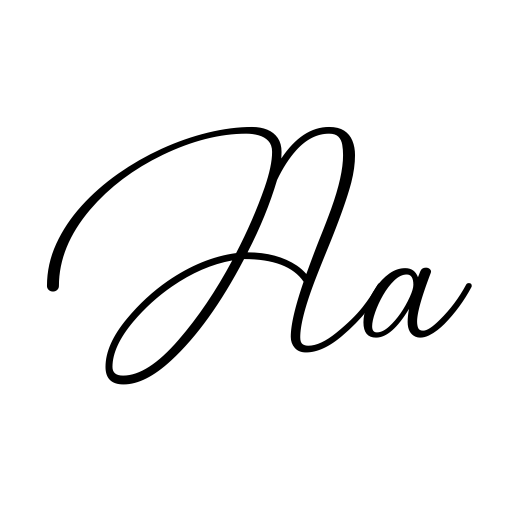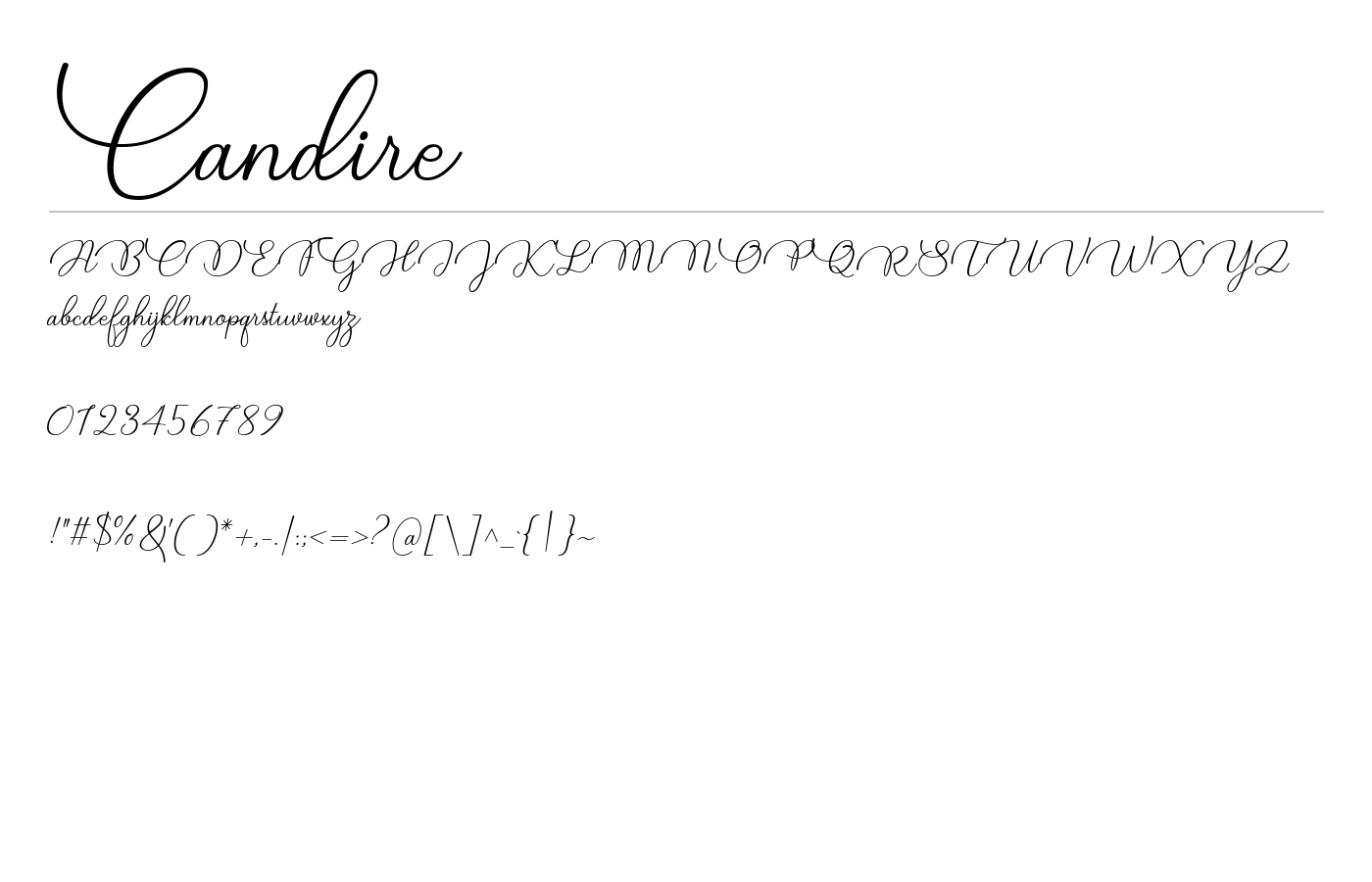
Candire is an elegant, delicate script font characterized by its thin, flowing strokes and graceful, looping letterforms that convey a sense of sophistication and charm. With its light weight and high-contrast, smooth curves, this font is perfect for invitations, luxury branding, and editorial designs where a refined, feminine touch is desired. Its ornate style works beautifully in headlines and decorative text, adding a stylish, personal feel to creative projects.
Candire Font
About Candire Font
| Font family | Candire Font |
| Designer | Andrian Dehasta; Situjuh Nazara |